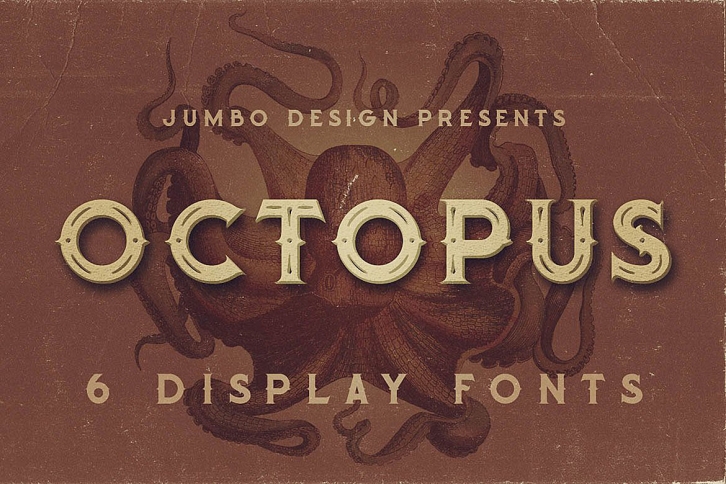
Octopus is a beautiful font that was designed by Cruzine Design. It's a great choice for designers and creatives who need such a font. It was released on October 8, 2017 and the file size is 9.22 MB. Octopus may give a more youthful, expressive and casual look to your project. It is a very beautiful, refined, elegant, and high-quality font.